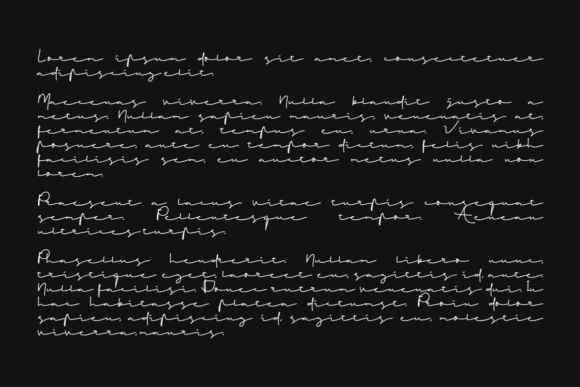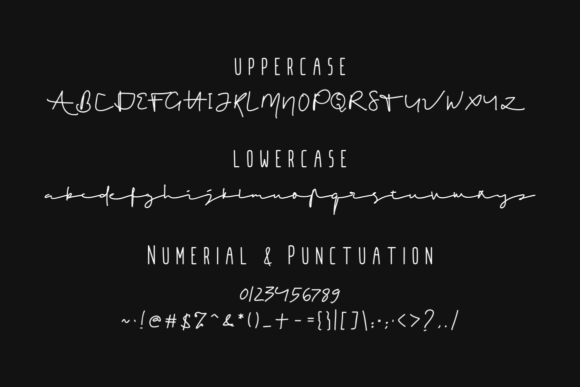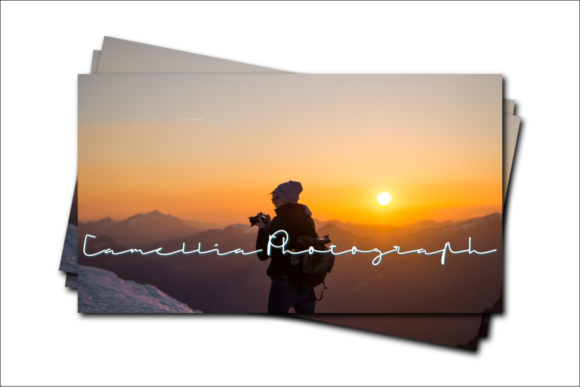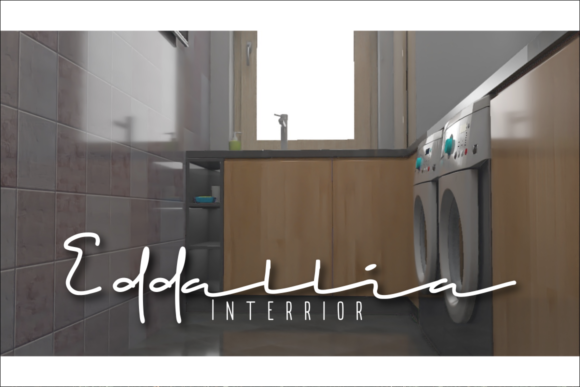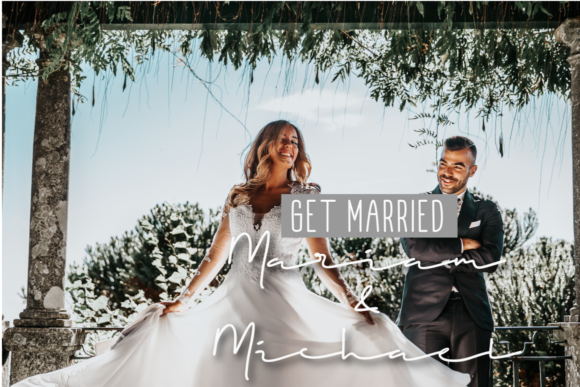
Discover the Unique Charm of Dirandra Font: Beauty Meets Authenticity
Are you tired of using the same old fonts in your designs? Look no further than Dirandra, a truly original typeface that combines beauty and authenticity in a way that’s sure to make your work stand out. In this article, we’ll dive into the world of Dirandra, exploring its unique features, and what makes it a must-have for designers and crafters alike.
The Story Behind Dirandra
Dirandra is more than just a font – it’s a work of art. Crafted with love and attention to detail, this typeface is designed to bring a touch of elegance and sophistication to any project. Whether you’re working on a logo, a website, or a craft project, Dirandra is the perfect choice for those who want to add a little something extra to their design.
What Sets Dirandra Apart?
So, what makes Dirandra so special? Here are just a few features that set it apart from other fonts:
- Unique Character Set: Dirandra boasts a comprehensive character set that includes uppercase and lowercase letters, numbers, and punctuation marks. This ensures that you have everything you need to create stunning designs.
- Beautifully Crafted: Each letter in Dirandra has been carefully crafted to ensure that it’s not only aesthetically pleasing but also highly legible.
- Authentic Feel: Dirandra has a distinctly authentic feel that will transport your designs back in time. Whether you’re going for a vintage or retro look, this font is sure to deliver.
- Highly Versatile: Dirandra is incredibly versatile, making it suitable for a wide range of design projects, from logos and branding to packaging and more.
Why Choose Dirandra?
With so many fonts to choose from, why should you choose Dirandra? Here are just a few compelling reasons:
- Add a Touch of Elegance: Dirandra brings a level of sophistication and elegance to any design, making it perfect for those who want to create high-end branding or packaging.
- Stand Out from the Crowd: With Dirandra, you’ll be able to create designs that truly stand out from the crowd. Its unique character set and beautifully crafted letters ensure that your work will be noticed.
- Perfect for Crafters: Dirandra is not just for digital designers. Its beautiful, authentic feel makes it perfect for crafters who want to add a personal touch to their projects.
How to Use Dirandra in Your Designs
- Pair it with Other Fonts: Dirandra pairs beautifully with other fonts, making it easy to create stunning contrast in your designs.
- Experiment with Colors: Dirandra looks great in a variety of colors, so don’t be afraid to experiment and find the perfect hue for your design.
- Use it for Headings and Titles: Dirandra’s elegant, authentic feel makes it perfect for headings and titles. Use it to add a touch of sophistication to your designs.
Dirandra is a truly unique typeface that combines beauty and authenticity in a way that’s sure to make your designs stand out. With its comprehensive character set, beautifully crafted letters, and highly versatile nature, it’s the perfect choice for designers and crafters alike. So why wait? Discover the unique charm of Dirandra today and take your designs to the next level!